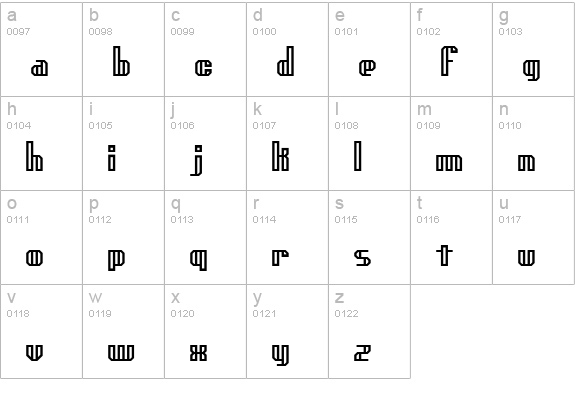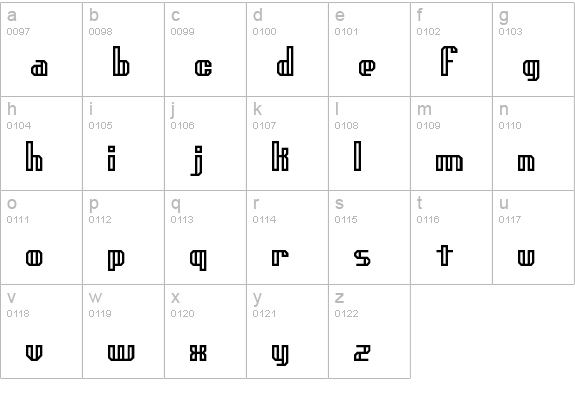
Genotype H BRK font is a modern and stylish typeface that exudes sophistication and elegance. With its clean lines and sleek design, this font is perfect for a wide range of design projects, from branding to editorial layouts. The sharp angles and geometric shapes of Genotype H BRK font give it a contemporary feel that is sure to make your text stand out. What's even better is that Genotype H BRK font is completely free to download at FontsMarket.com. That's right, you can add this gorgeous font to your collection without spending a dime. Whether you're a graphic designer, a web developer, or just someone who loves experimenting with different fonts, Genotype H BRK font is a must-have addition to your toolkit. Don't miss out on this fantastic opportunity to enhance your projects with this beautiful and versatile typeface.